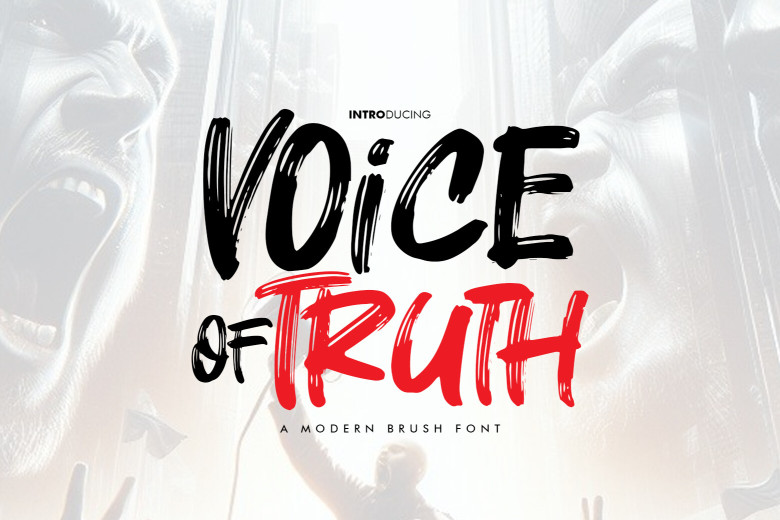
Voice Of Truth Font
Voice of Truth is a modern brush fonts that is perfect for stationery, posters, logos, magazines, book, banners and many more. You can get this very fun and cute display font, thus, using it to make beautiful designs! It can be easily associated with an exceptionally vast number of projects, therefore, augment it to your creativity and observe how it enhances your ideas!
Voice Of Truth Brush Font